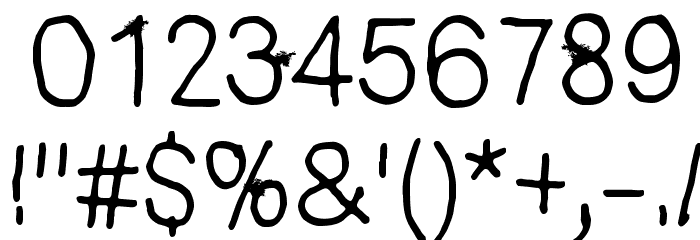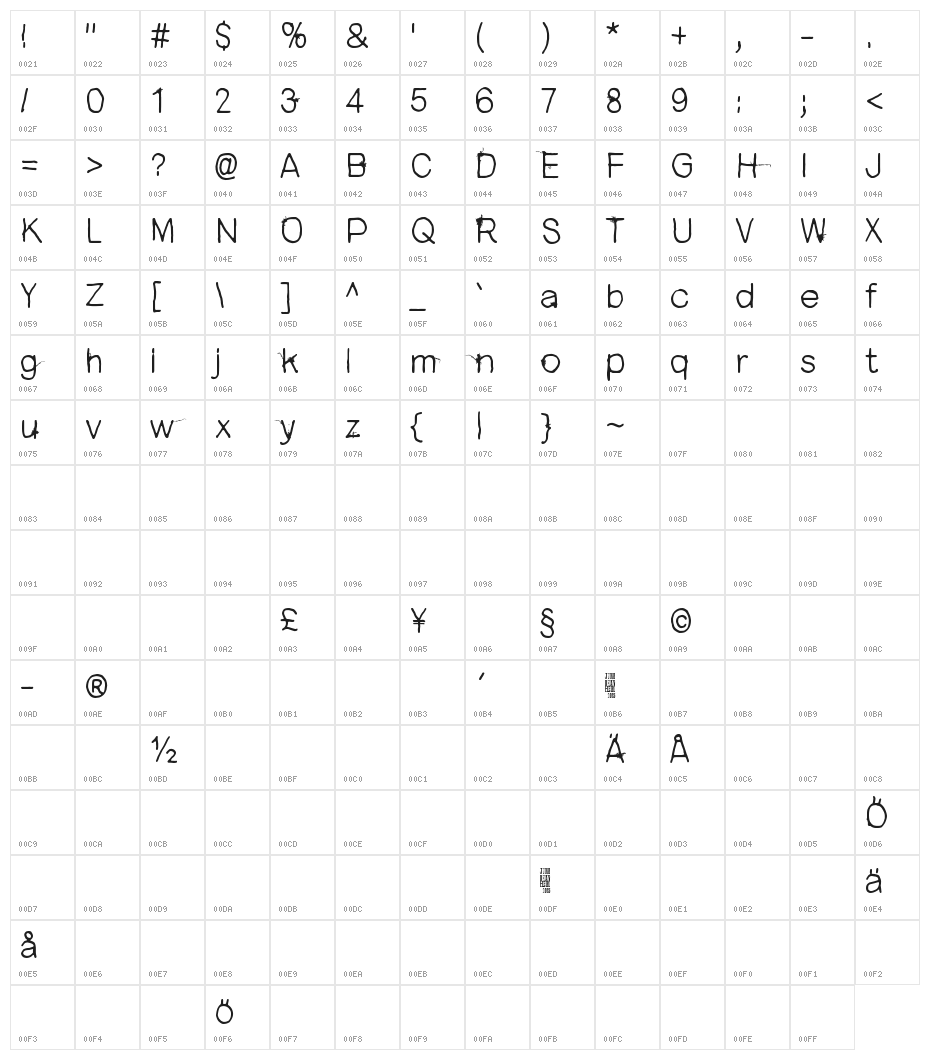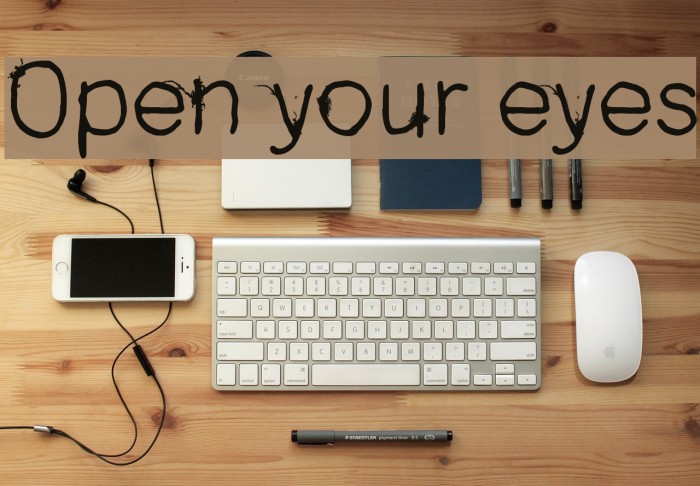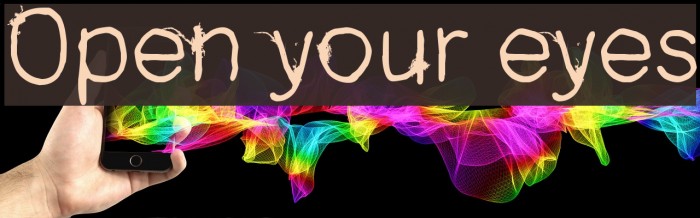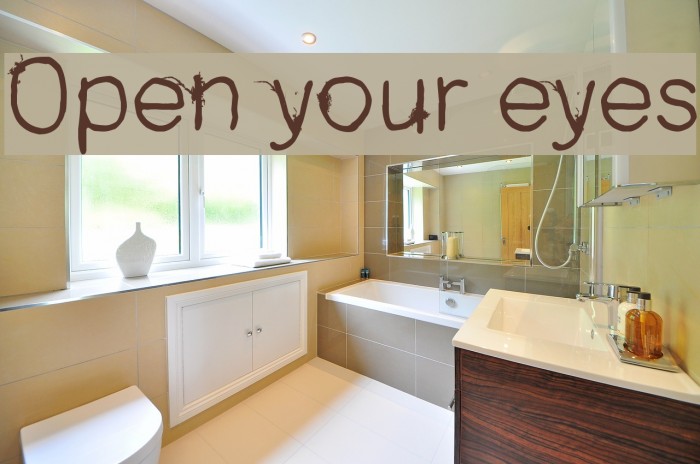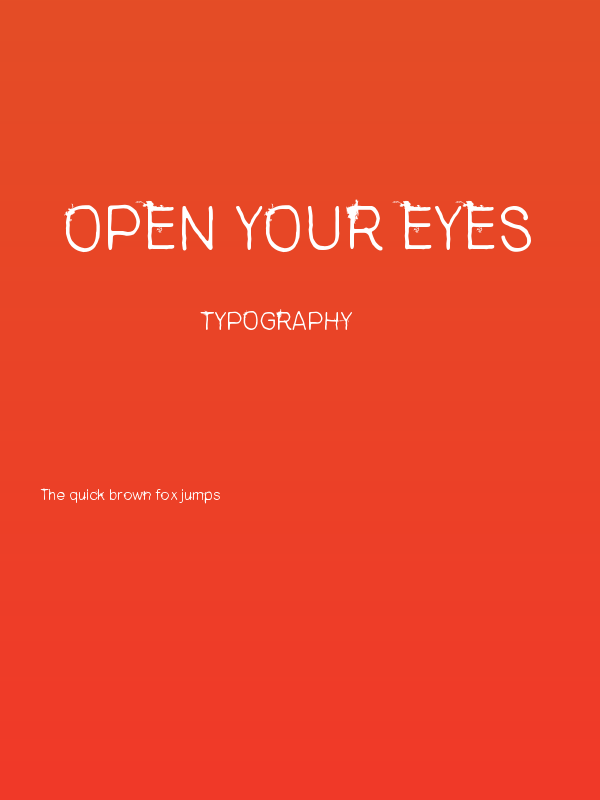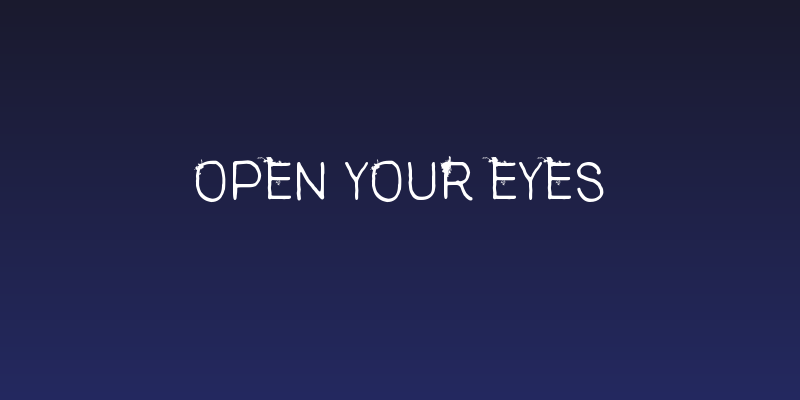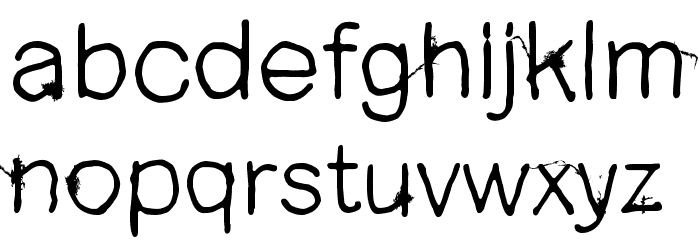
Open your eyes Font
Open your eyes Description
This font features a distressed, grunge style with irregular edges and a hand-drawn appearance. The characters are slightly uneven, giving it a raw and organic feel. The uppercase and lowercase letters maintain a consistent height, while the numerals and special characters follow the same rugged design. The font's unique texture adds a sense of edginess and creativity, making it stand out in any design. Its artistic imperfections suggest a sense of movement and energy, ideal for projects that require a bold and unconventional look.
| Overall Style | Grunge, Artistic |
| Proposed Projects | Ideal for album covers, posters, streetwear branding, and artistic projects requiring a bold, edgy look. |